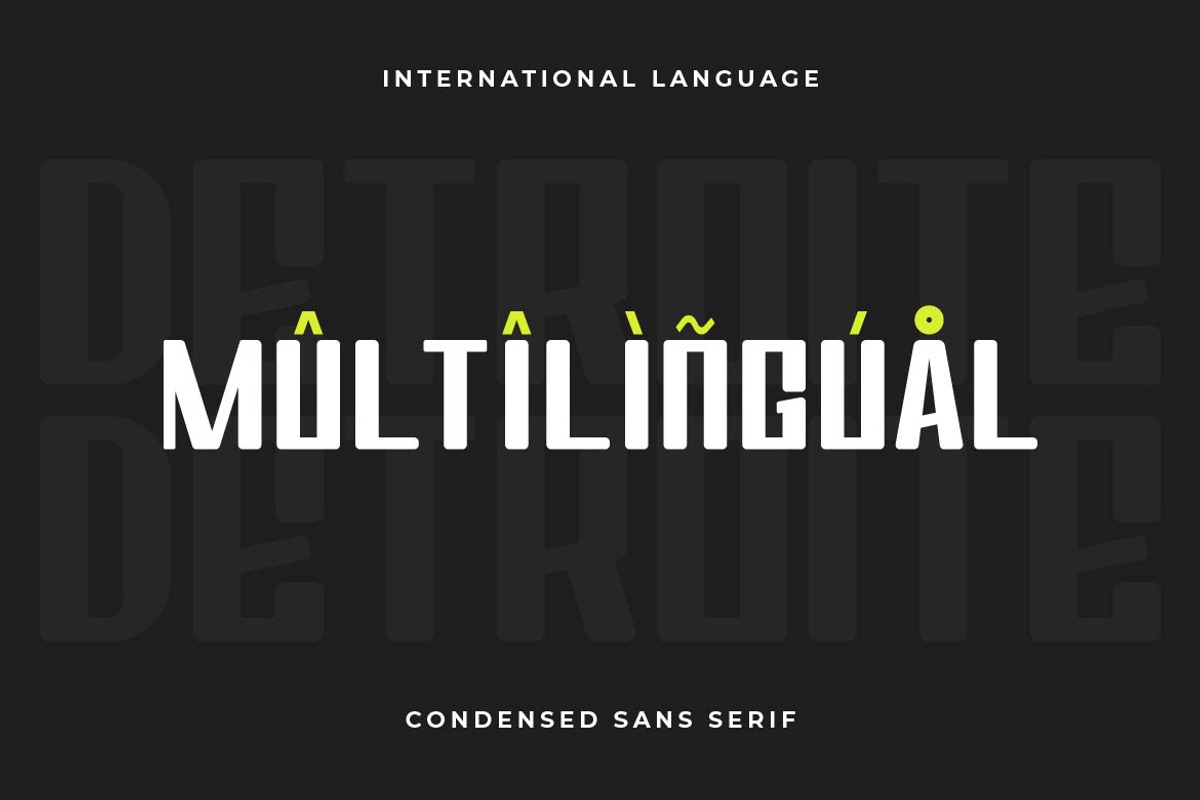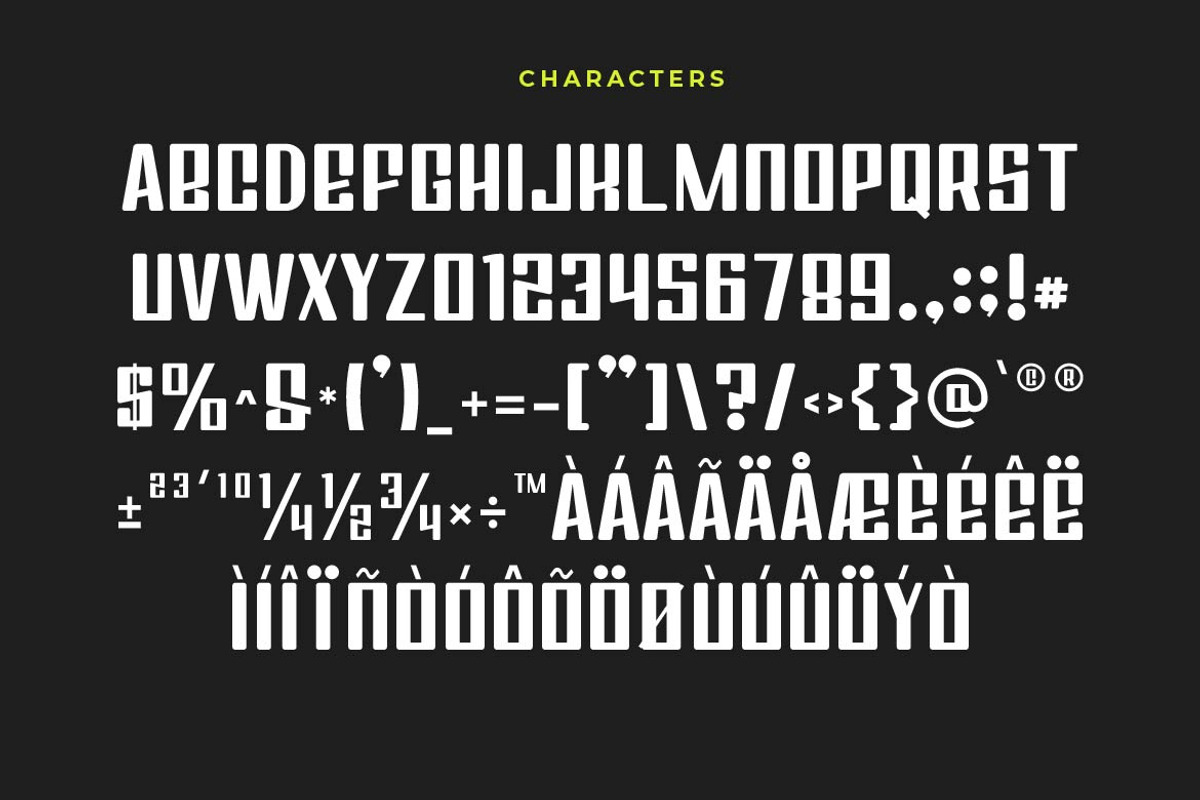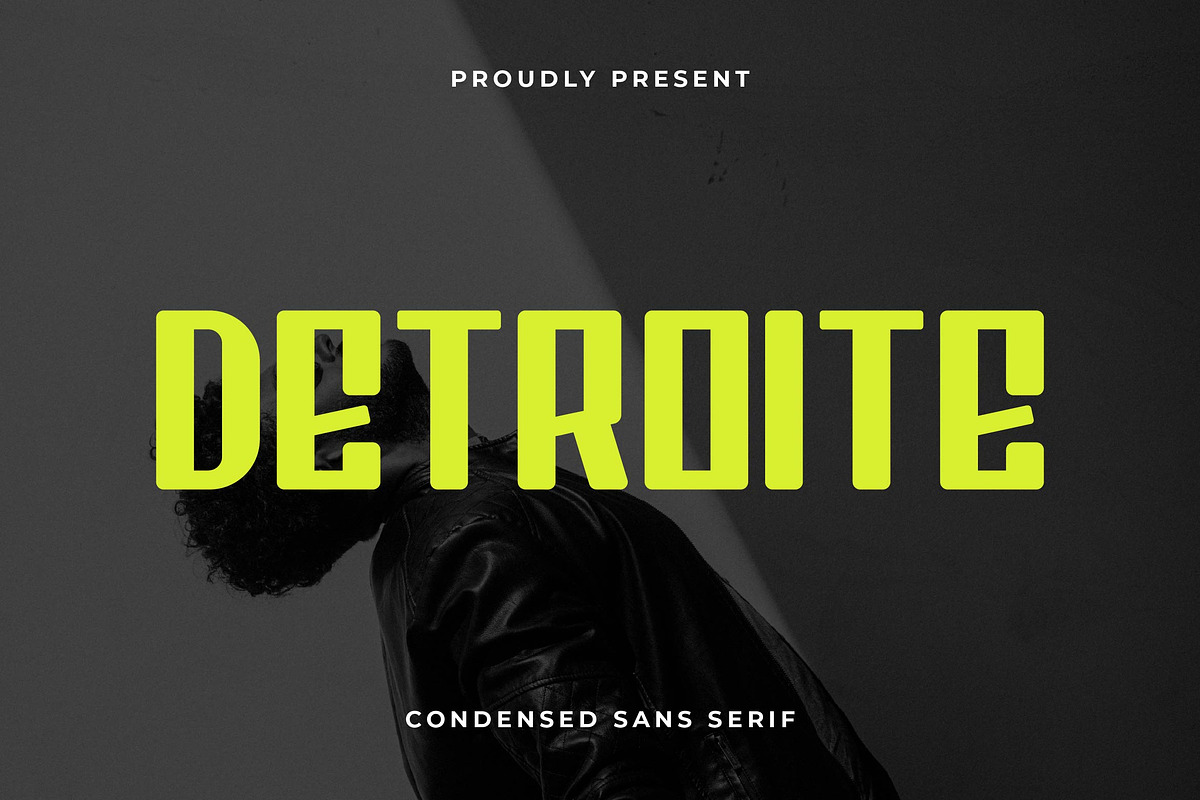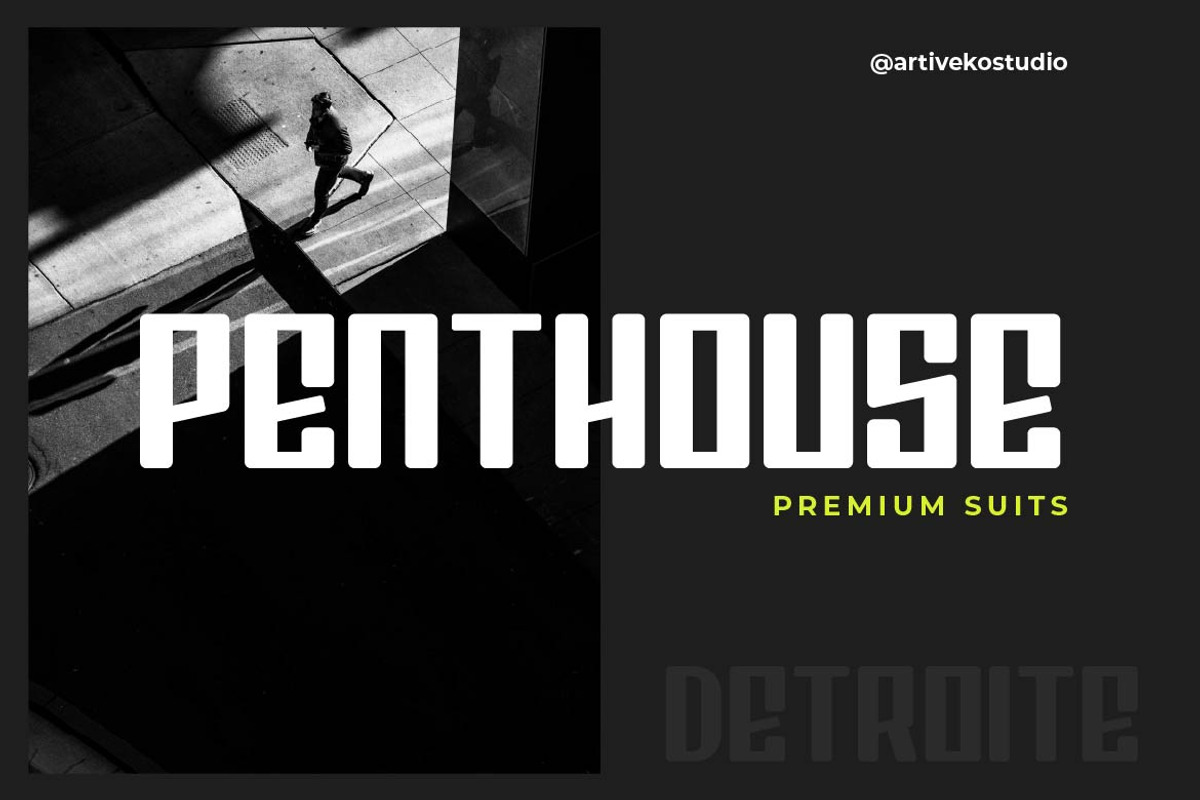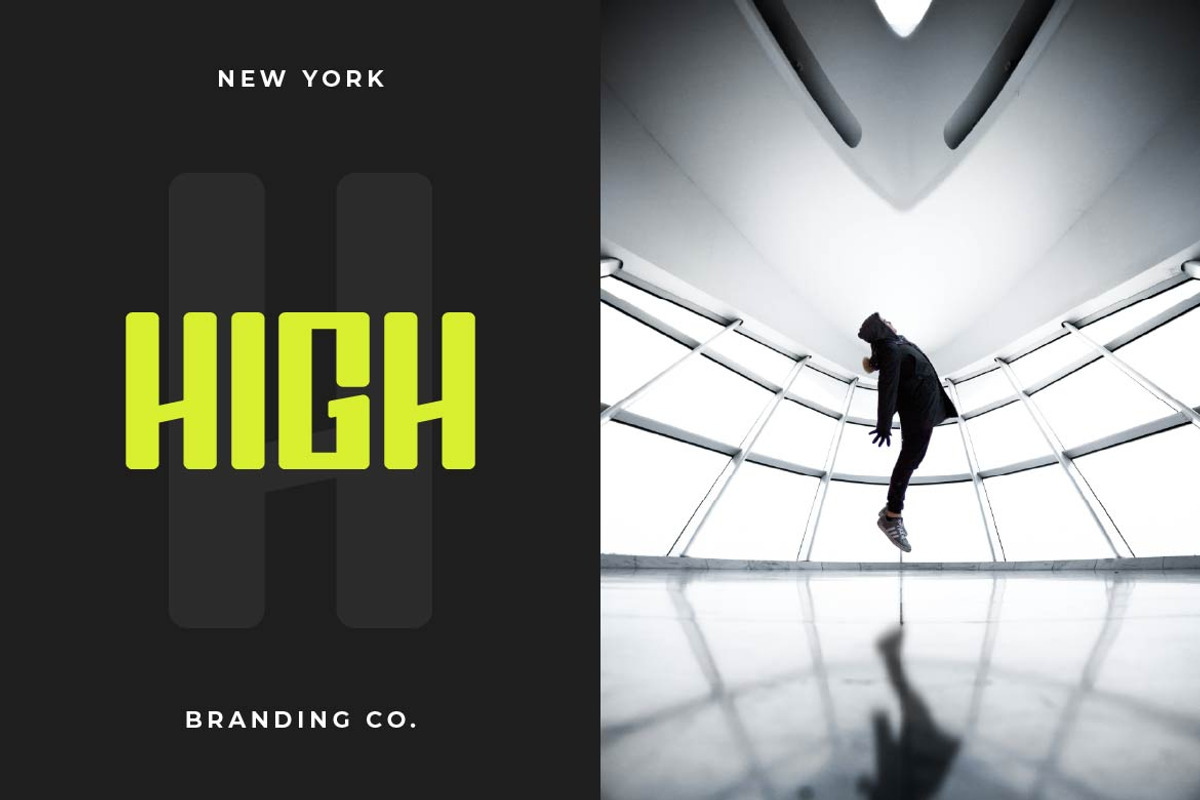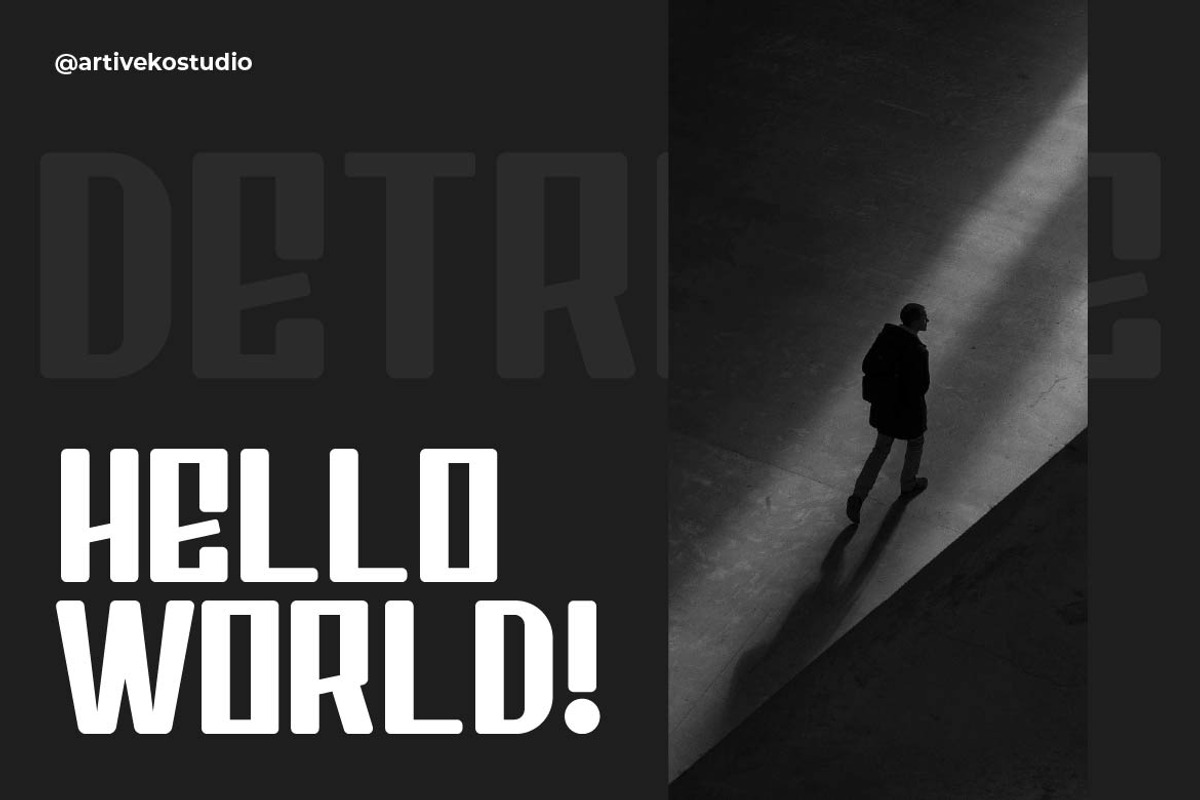
Detroite Display Typeface
Detroite is a condensed sans serif font built for impact. With bold strokes, tight spacing, and industrial strength in its DNA, Detroite commands attention without saying a word too loud. Its condensed form allows for powerful messaging in limited space — perfect for headlines, posters, branding, packaging, editorial layouts, and sports-inspired visuals.